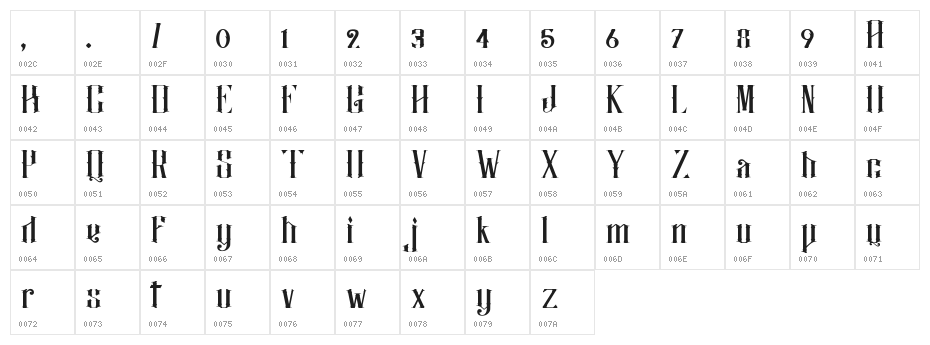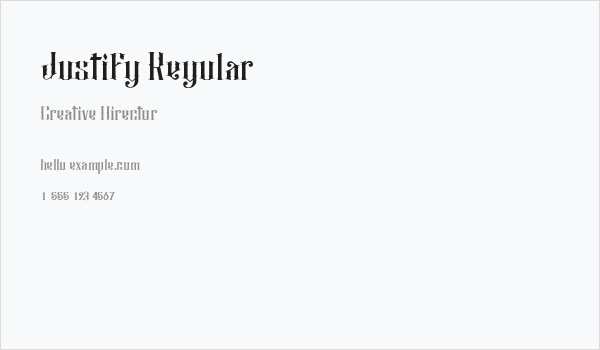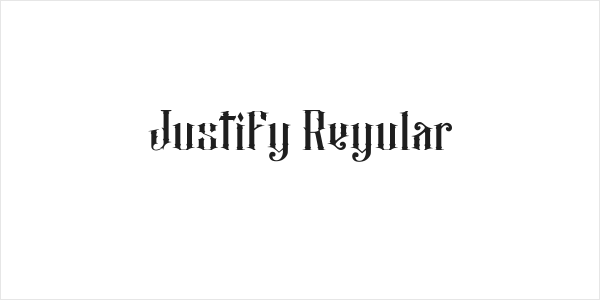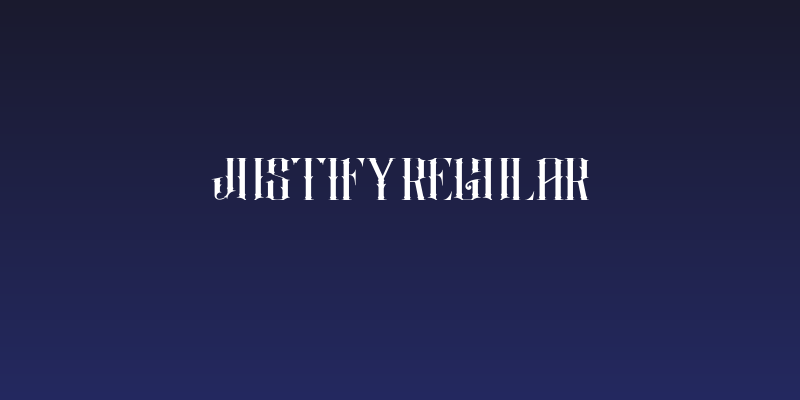
Justify Regular Font
Justify Regular Description
This font features a classic blackletter style with intricate details and sharp edges. The uppercase letters are bold and commanding, while the lowercase letters maintain a consistent flow with ornate flourishes. The numbers are equally stylized, matching the overall aesthetic of the alphabet. The special characters are designed to complement the text, adding a touch of elegance and historical flair. This font is reminiscent of medieval manuscripts and traditional calligraphy, making it ideal for projects that require a touch of vintage sophistication.
| Overall Style | Vintage |
| Proposed Projects | Ideal for historical documents, vintage-themed designs, book covers, and branding that requires a classic touch. |